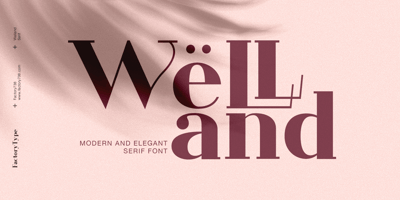
Welland Font Family was designed by Wahyu Rahmawan and published by Factory738. Welland contains 10 styles and family package options. Welland is a modern and elegant serif font family. The combination of modern and vintage elements renders an elegant design. The variety of weights provide a range of choices that will help you find the best typographic colour for your project. Lighter weights are well-suited for body text while heavier ones are ideal for high impact headlines. The available stylistic Ligature and Alternate offer a number of different characters that give your project design or logo a unique look. 5 Weights (Light, Regular, Semibold, Bold, Black) Basic Latin A-Z and a-z Numerals & Punctuation Stylistic Alternates & Ligatures Multilingual Support for ä ö ü Ä Ö Ü … OTF file format Free updates and feature additions Thanks for looking, and I hope you enjoy it.